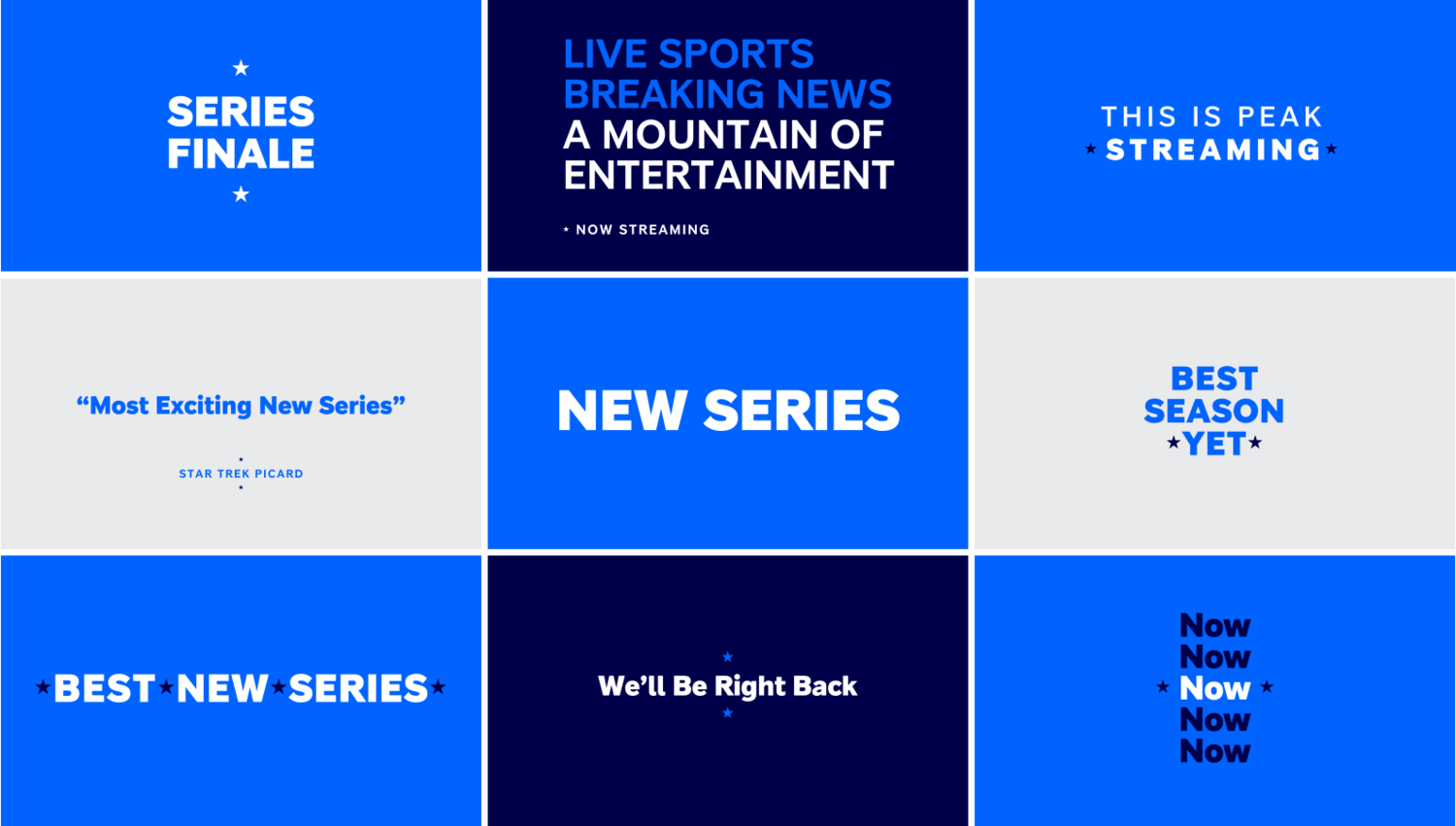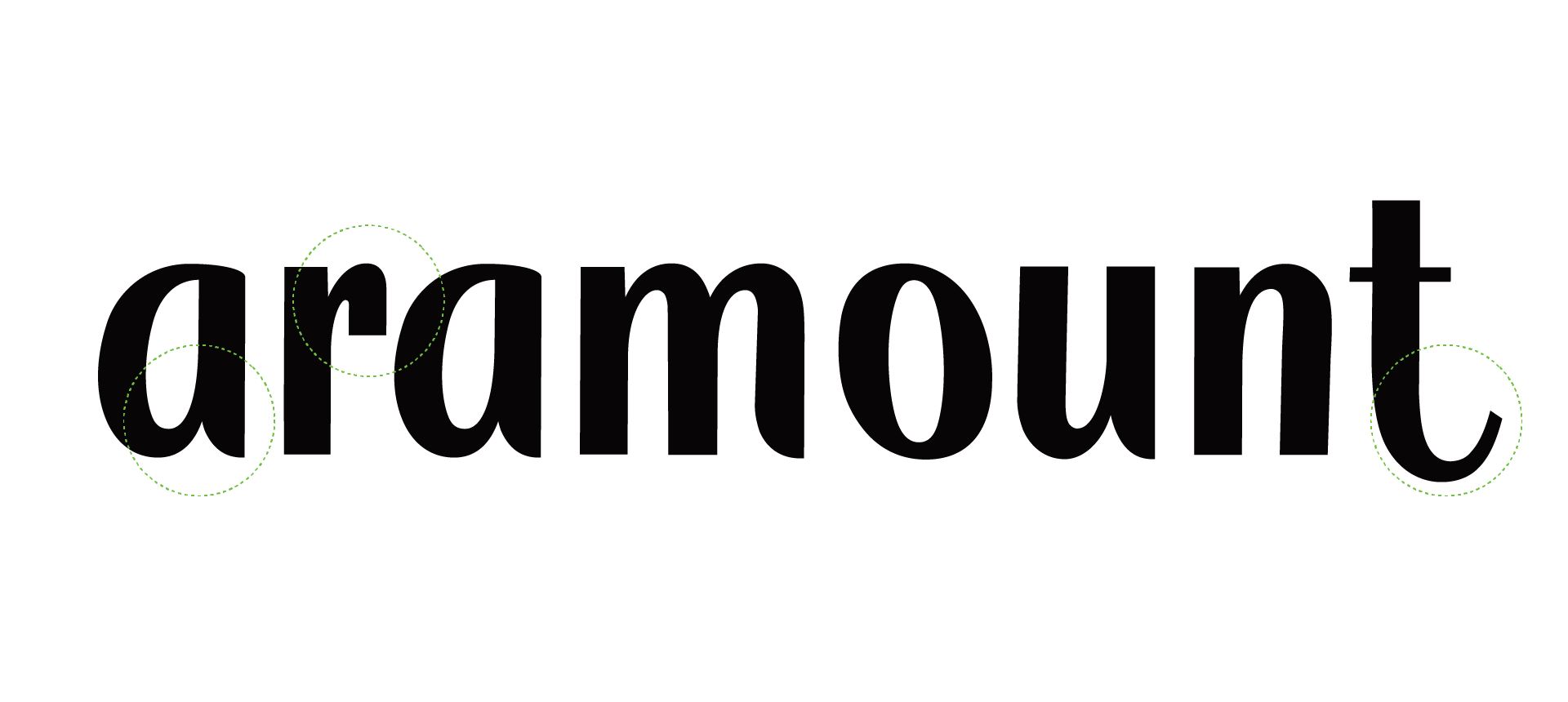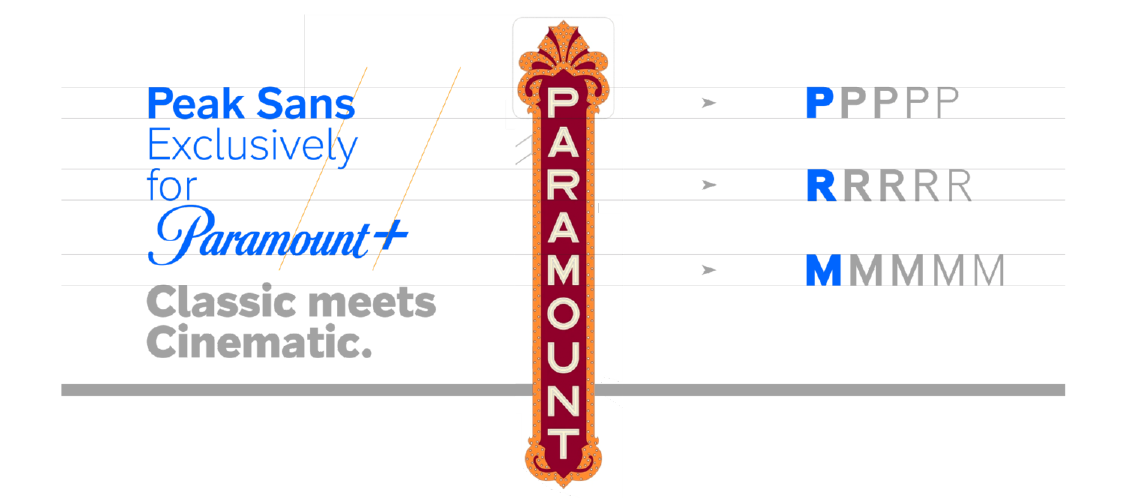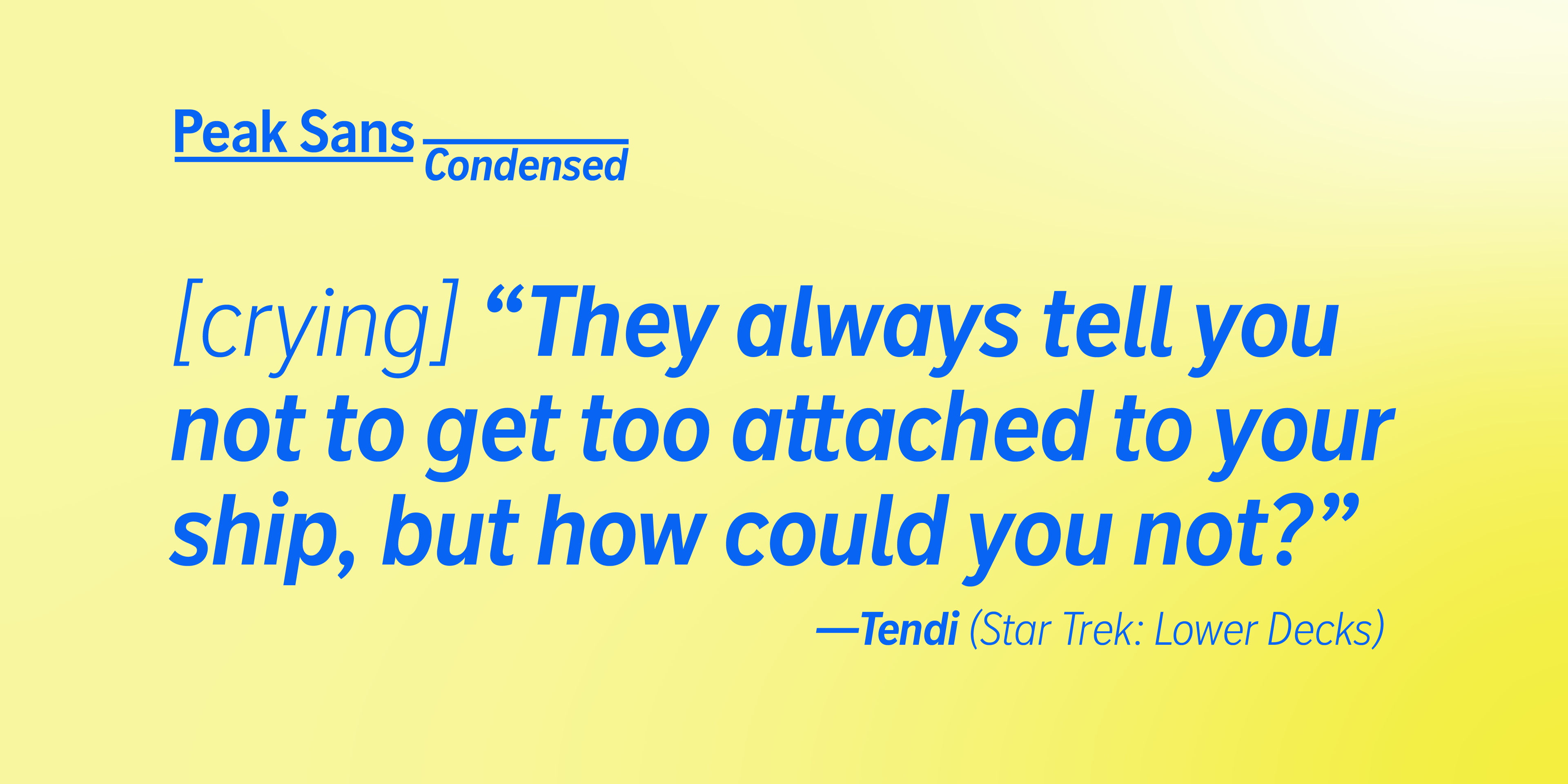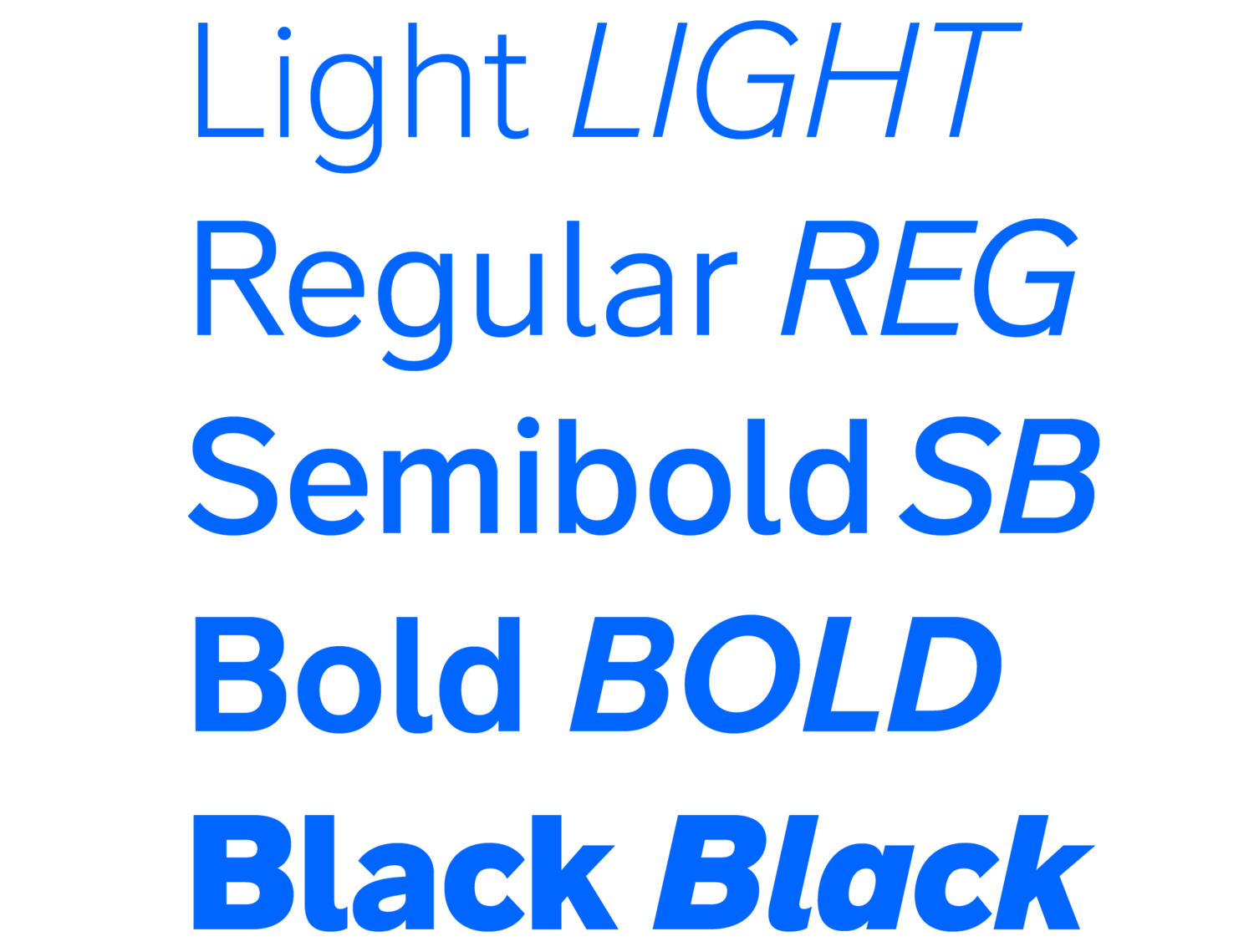
Paramount is a media company that has been entertaining global audiences across various platforms since 1912. In the 100+ years since its founding, the world has evolved, and so has Paramount. 2020 was no exception.
At the start of the pandemic, digital entertainment rose to the forefront, with streaming services becoming the new standard for movies, tv-series, and more. With this change, Paramount wanted to take the next step in their entertainment medium.
In 2020, Paramount launched Paramount Plus, an independent streaming platform that showcases their robust library of shows, movies, and more. Distinct from Paramount as a whole, but strongly related, Paramount Plus needed its own branding.
The process started by identifying which aspects of the Paramount script could be reused in a modern sans.
Creating a sub-brand to house all of Paramount’s digital streaming content required custom type foundries with an emphasis on logos and brand design. The overall challenge was to create a timeless identity–based on Paramount’s iconic branding–that lived firmly in the future.
Enter Type Network. We worked with loyalkaspar to determine Paramount Plus’s typographic needs and the parameters for a custom typeface. Type Network’s Victoria Rushton and Dyana Weissman then provided project management and our usual high standard of quality control for both the design and technical aspects of the typefaces.
For the initial styles, we tapped partner Richard Lipton, founder of Lipton Letter Design. Lipton has been creating exquisite letterforms for more than 40 years and has a constant thirst for creativity. With a long history in type and a strong familiarity with Paramount’s work, Lipton was perfect for the project.
Calligrapher Richard Lipton develops original typefaces as well as custom fonts for international clients.
Further adjustments and versions were derived from the iconic Paramount blade sign.
The design process started with the question “Which parts of the Paramount Script could be adopted and adapted to a modern sans serif typeface?” Loyalkaspar started pulling curves and shapes from the original typeface to play with in the initial drawings. The script alone wasn't enough inspiration. More was necessary to push this typeface to its full potential.
Loyalkaspar looked to Paramount’s recognizable marquee for a strong historical essence. Their team made a number of slight adjustments to modernize these elements; however, its integrity stood as a focal point for the final type design.
Once the initial styles were finalized and put to use, loyalkaspar and Paramount wanted to expand their options. Adding condensed styles to the typeface meant more flexibility both on screens and in advertising. To create these additional styles of Peak Sans, Rodrigo Saiani of foundry partner Plau was brought in. Saiani was selected not only for his robust experience designing type for media brands but also for his expertise in creating condensed typefaces. On this Saiani said:
It’s interesting to see how Peak fits into this genre of cinematic Sans-Serifs, being inspired by historical marquee signs that represent the entertainment industry so beautifully. On the other hand, a typeface has to perform (pun-intended) so many other roles in the communication of a brand. We have to be conscious so that the type does not take too much of a leading role sometimes. Peak, to me, is like this trustworthy actor whose name you don’t quite remember but keeps being cast in all our favorite shows.
The result is the Peak Sans Family: A sturdy serif that stands the test of time and pays homage to the years of entertainment history Paramount has built as it looks toward its new digital streaming potential. According to Daniel Dörnemann, Executive Creative Director at loyalkaspar:
Typography is one of the few brand elements that has the ability to travel along with the brand to almost any place, which is why it is so important to have it bespoke and related to the brand. The custom font for Paramount+ had to be robust and neutral to not only communicate effortlessly across all touchpoints, but to make sense in the context of all content from Drama to News, to Sports, to Comedy.
We balanced this with grounding it in the rich heritage of the brand, taking inspiration from the iconic Script and from theater marquee signage. Richard Lipton and Rodrigo Saiani’s work on Peak Sans and Peak Sans Condensed captured that history beautifully, without sacrificing functionality in modern uses. We are proud of how the Paramount+ identity and Peak Sans work together to create the overall brand.
The overall identity went on to win several Promax awards, including the bronze prize for ‘Streaming Brand Image: Rebrand, Refresh or Launch,’ and the coveted gold prize for ‘Total Brand Image Package.’